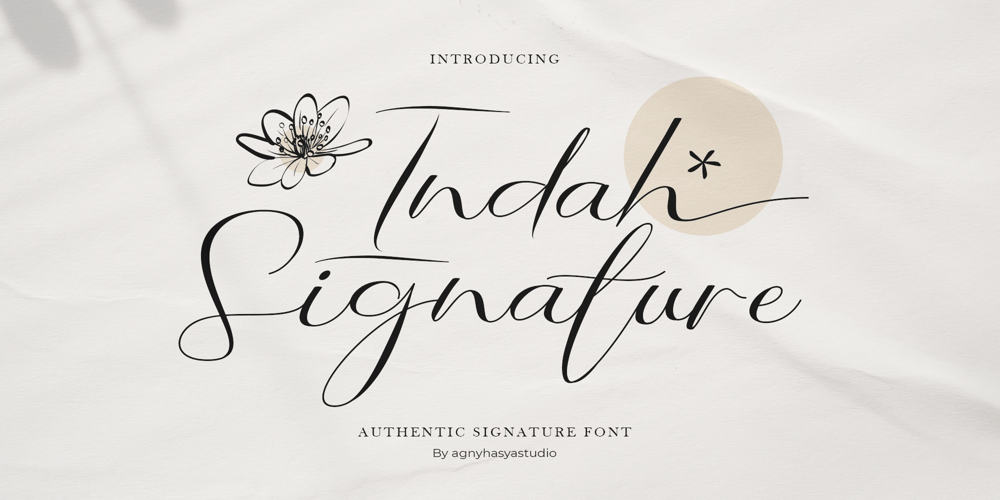
Indah Signature Font Family was designed by Firman Maulana and published by Agny Hasya Studio. Indah Signature contains 1 styles and family package options. Introducing Indah Signature Is a Signature Handwritten Script Typeface. It Is Stunning, Professional, Modern, and Elegant.It Also Supports Multilingual Characters, Making It Perfect for Use in Various Languages.It’s Perfect for Design Projects Such as Logos, Advertising, Branding, Posters, Banners, Product Designs, Art Quotes, Special Events, Product Packaging,Wedding Designs, Invitations, Business Cards, Photography, Watermark, and Any Projects Need Handwriting Taste Made.